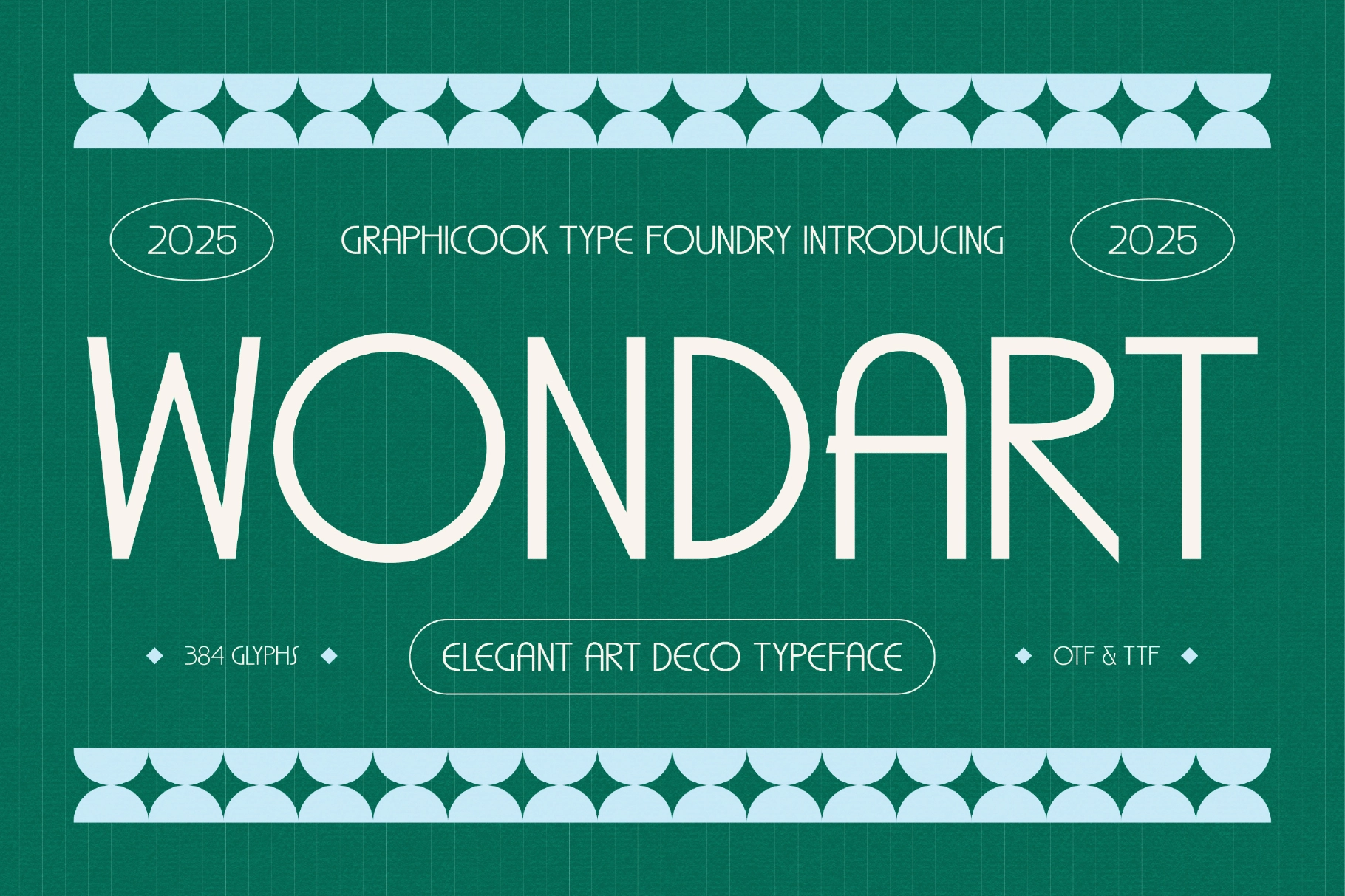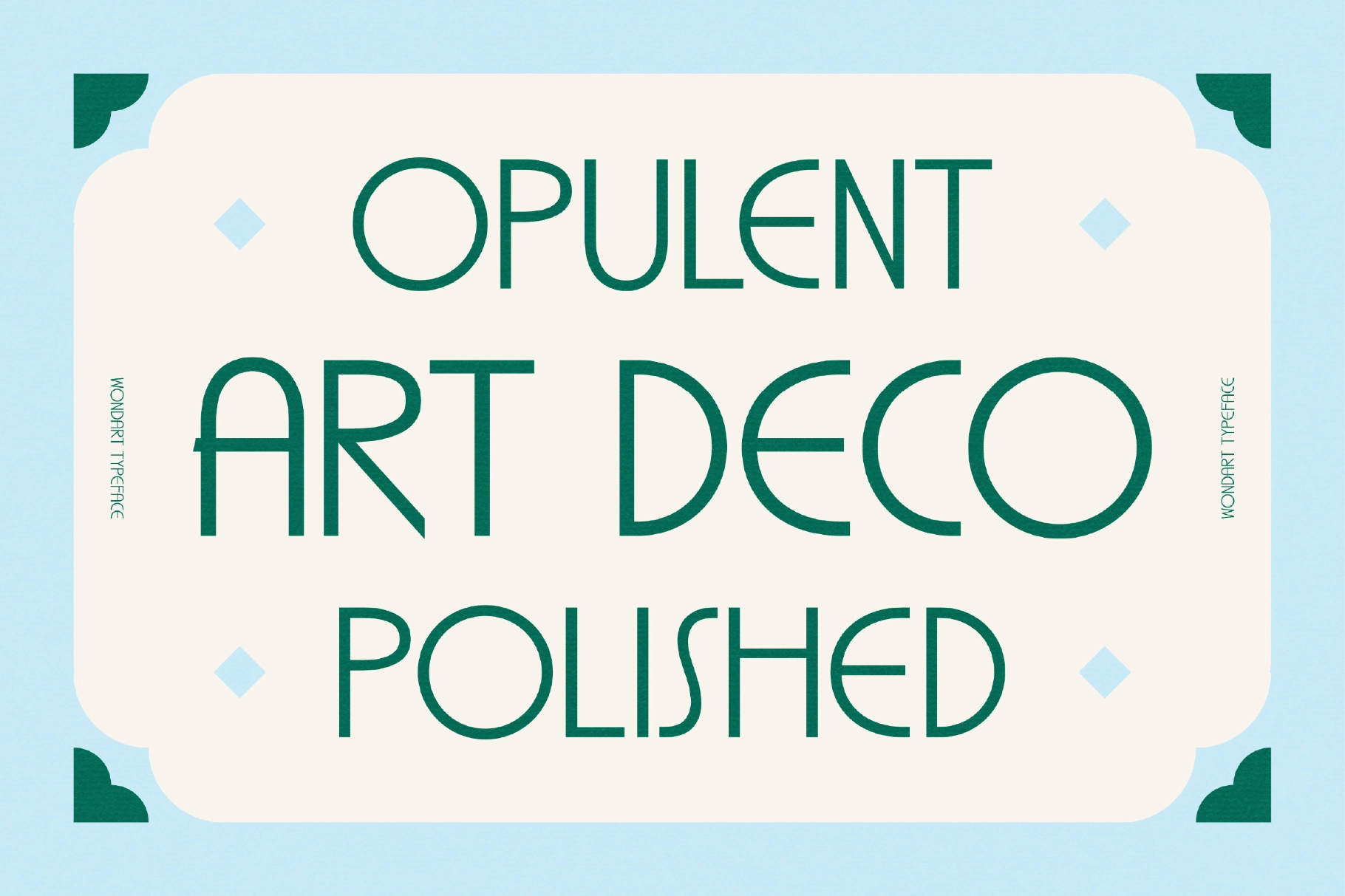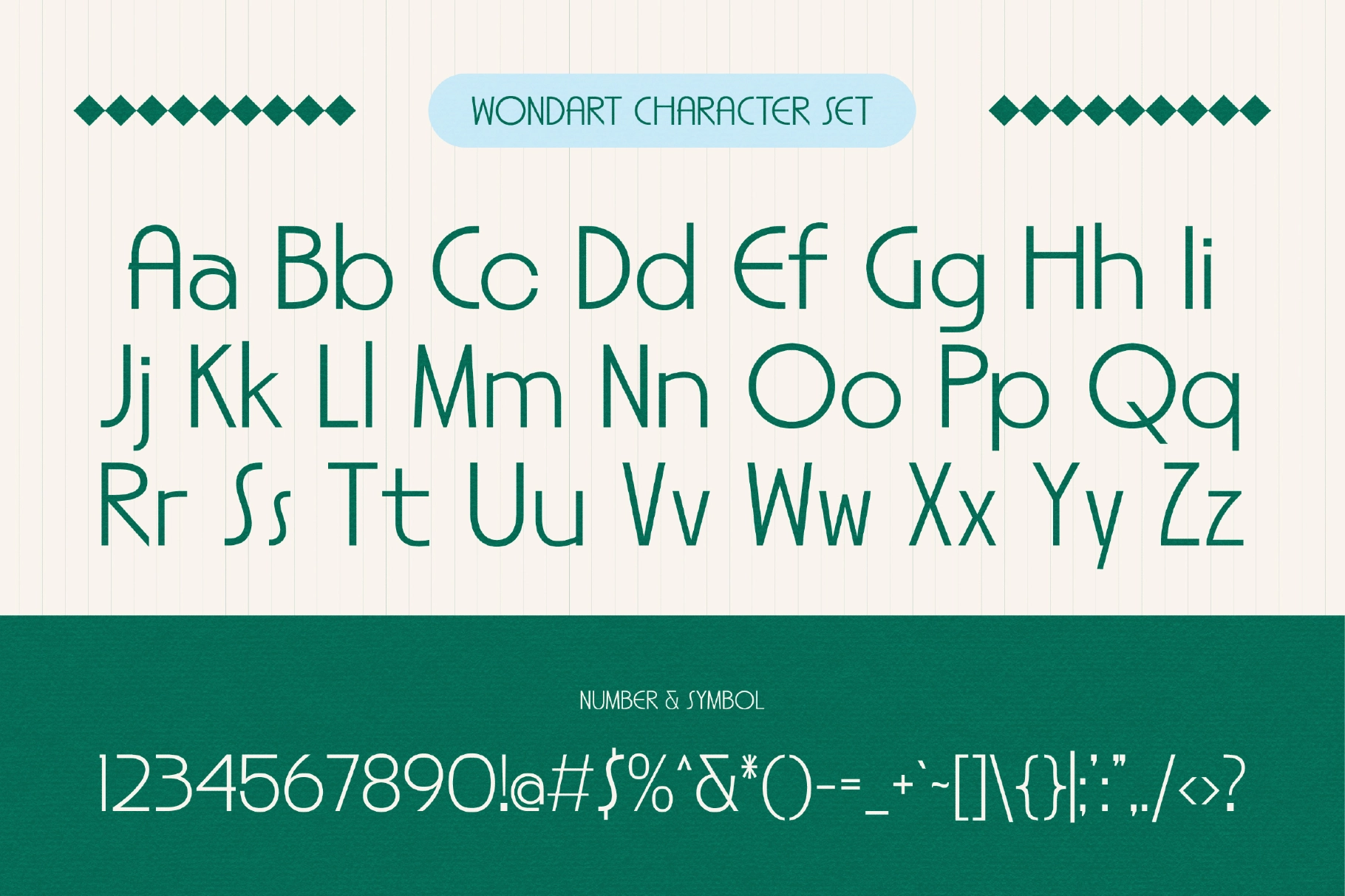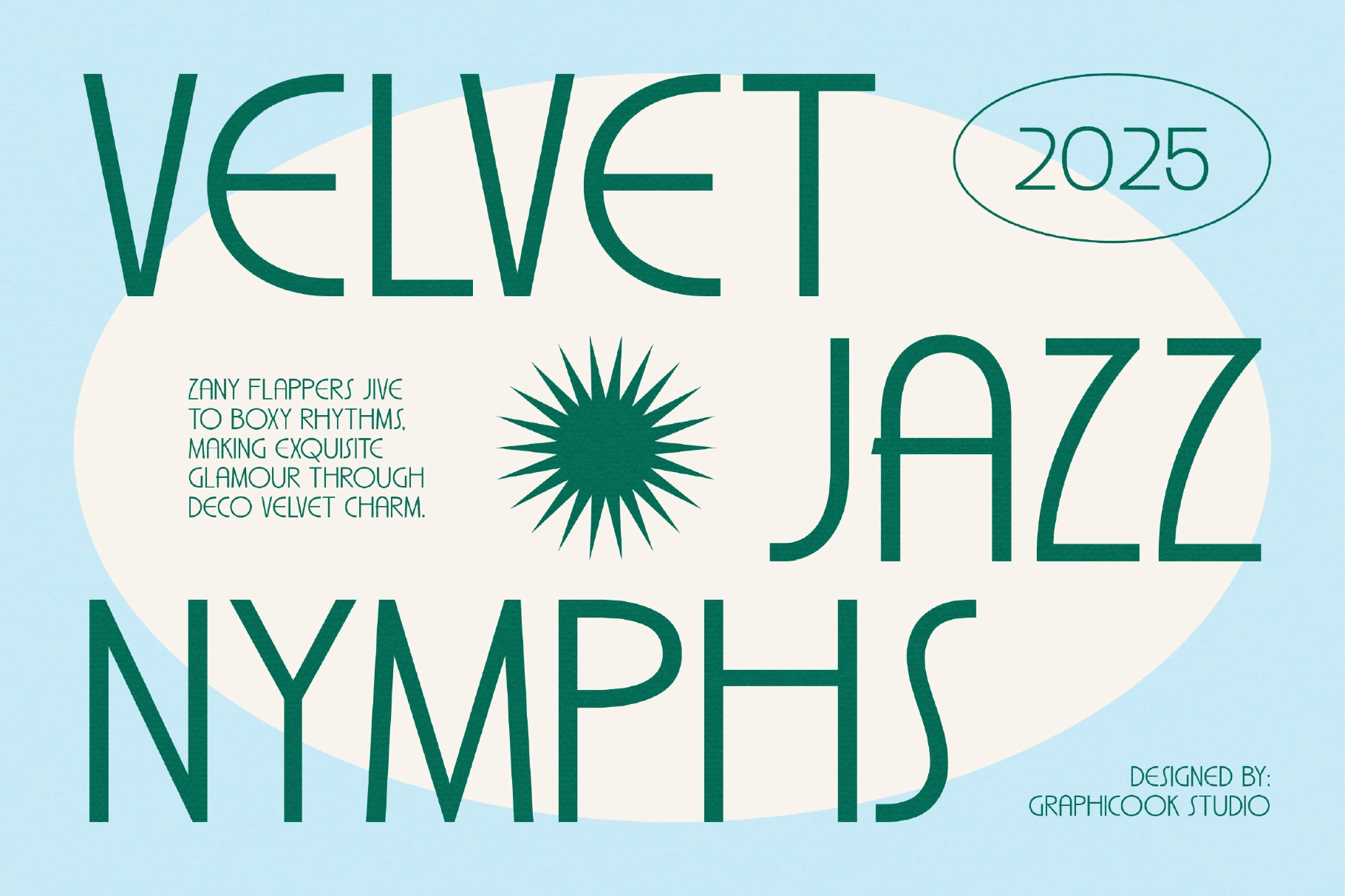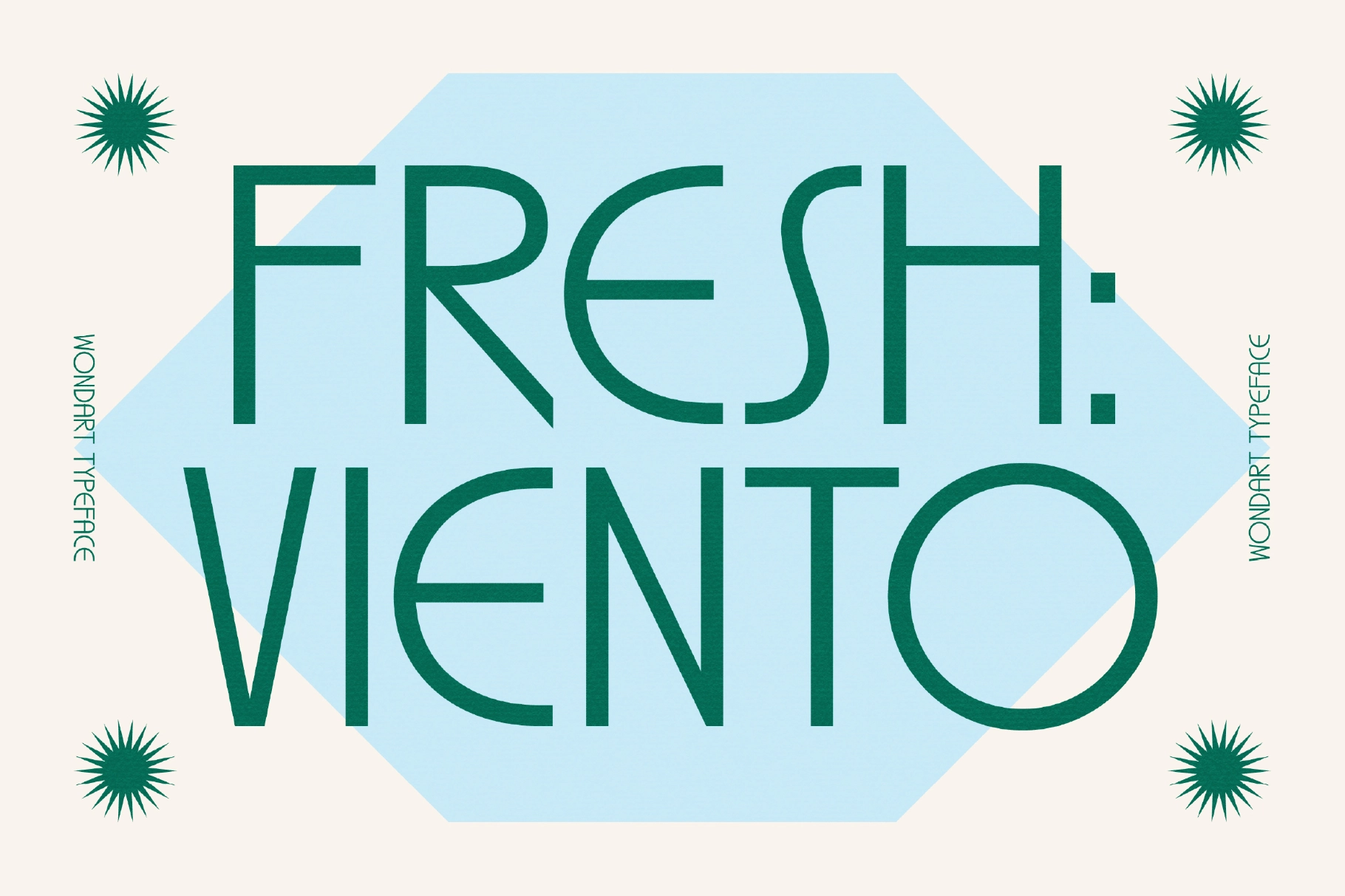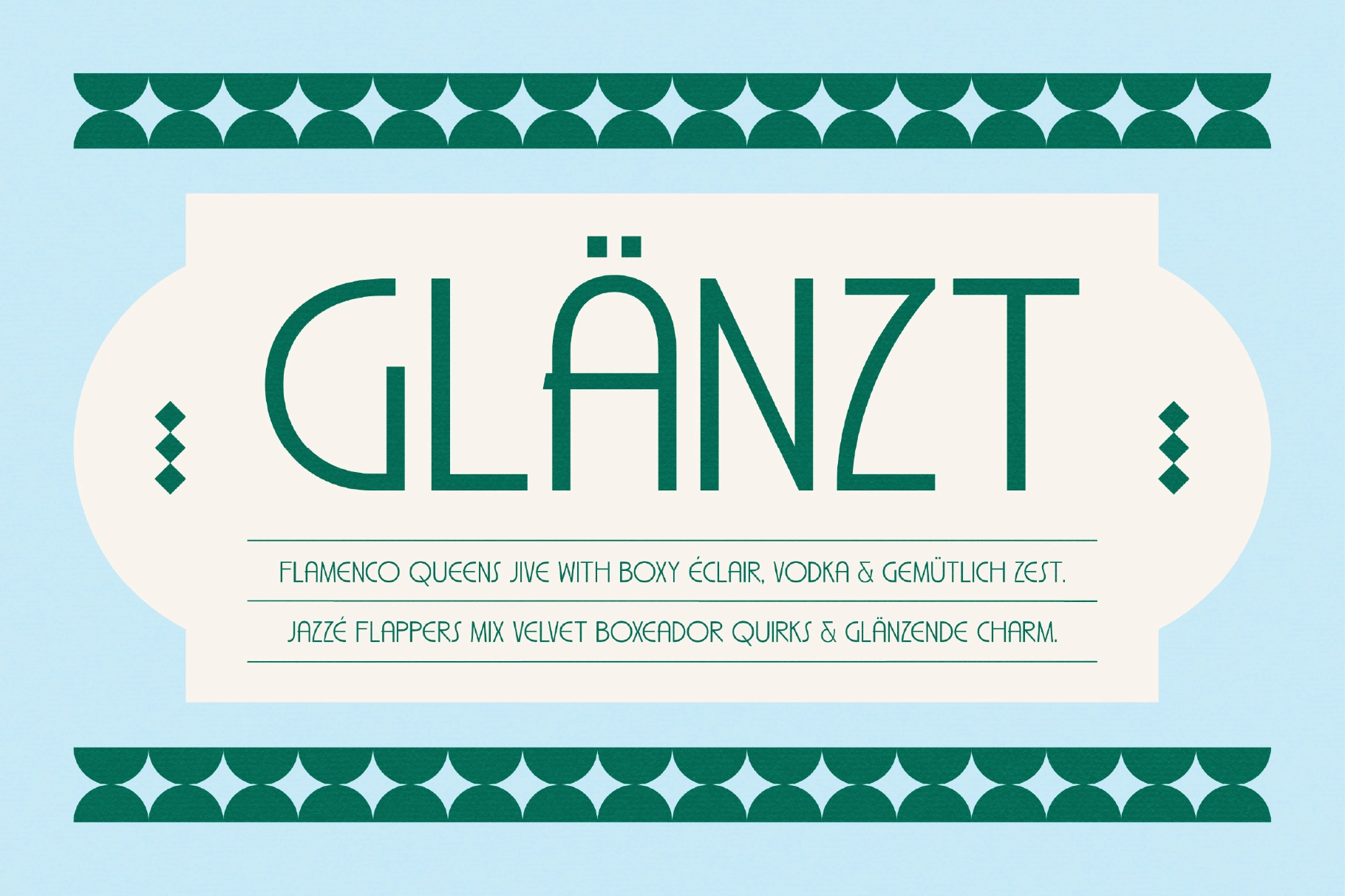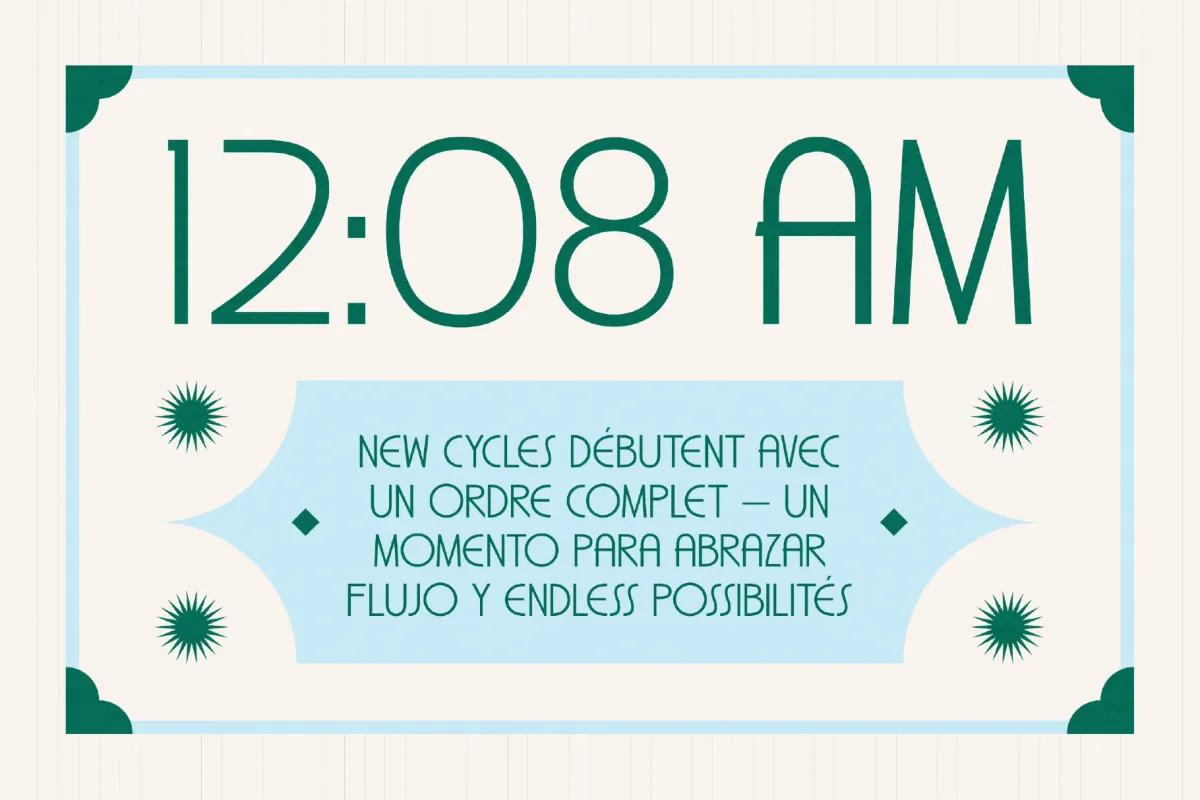
Wondart - 1920s Art Deco Font
Wondart
Wondart - 1920s Art Deco Font is a sleek, elegant typeface inspired by the geometric curves and refined minimalism of early twentieth-century design. It features tall, narrow letterforms with distinctive rounded terminals that feel both sophisticated and friendly. This font is perfect for posters, invitations, logos, and branding where you want to evoke a stylish vintage atmosphere with a clean, contemporary touch.